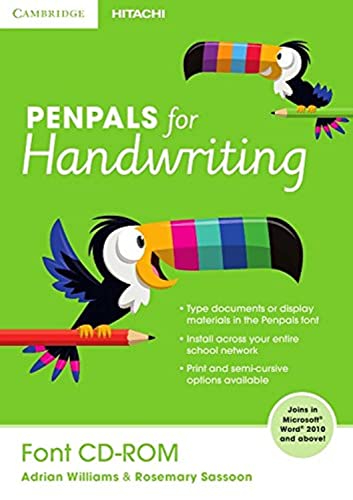
Penpals for Handwriting is a complete handwriting scheme for 3-11 year olds. Create class materials with the Penpals font! The fonts used in Penpals are based on the groundbreaking research of handwriting specialist and designer Rosemary Sassoon. They are available for teachers to use to create worksheets and classroom displays, and for children to use in their own word-processing. The fonts will work in Microsoft(R) Word(R), Microsoft(R) PowerPoint(R) and most other programs that support OpenType fonts. Sassoon Penpals Joiner will join as you type, using the joins recommended in Penpals for Handwriting (Word 2010/2011 users only)
Create class materials with the Penpals font! The fonts used in Penpals are based on the groundbreaking research of handwriting specialist and designer Rosemary Sassoon. They are available for teachers to use to create worksheets and classroom displays, and for children to use in their own word-processing. The fonts will work in Microsoft® Word®, Microsoft® PowerPoint® and most other programs that support OpenType fonts. Sassoon Penpals Joiner will join as you type, using the joins recommended in Penpals for Handwriting (Word 2010/2011 and above)